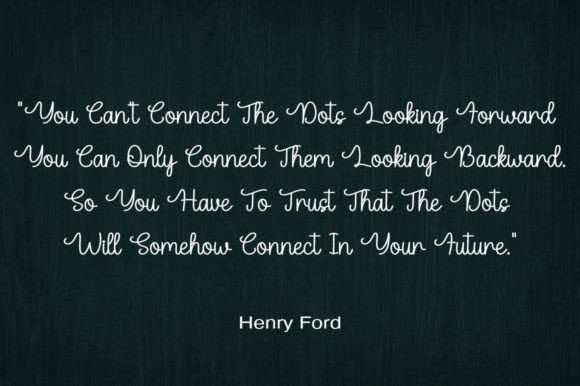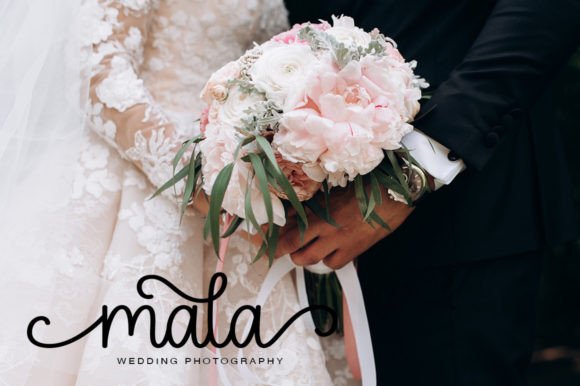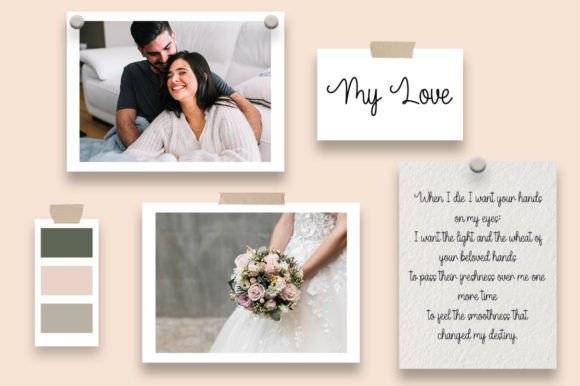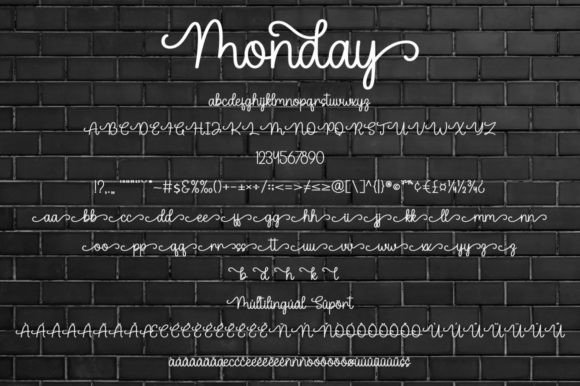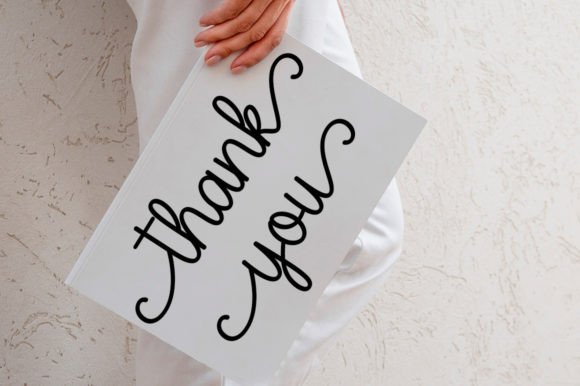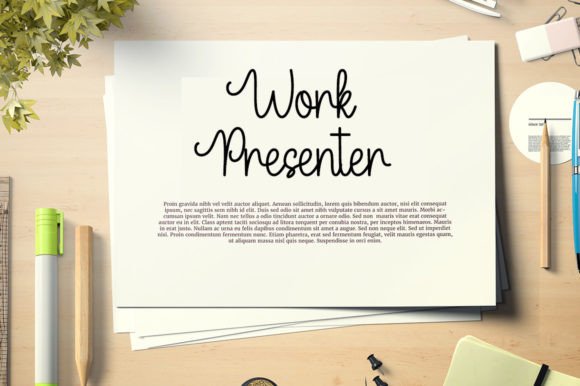
Monday Font
About Monday Font
The Monday Font Download is a beautifully crafted handwritten typeface that blends elegance with modern freshness. Designed to bring a delicate yet stylish charm to your work, Monday is a font that feels natural, graceful, and contemporary. Its smooth lines and carefully shaped letters make it perfect for projects where you want your designs to stand out with a personal touch.
Unlike overly formal calligraphy, Monday strikes the right balance between casual handwriting and professional design. This balance makes it versatile for many applications, whether you are working on personal projects or professional branding.
Features of Monday Font
When you choose the Monday Font Download, you gain access to a set of creative features designed for flexibility and beauty:
• Delicate handwritten style with modern details
• Uppercase, lowercase, numerals, and punctuation included
• Excellent readability for both print and digital designs
These features make Monday a reliable font for both professional designers and hobbyists.
Best Uses for Monday Font
The Monday Font Download adapts beautifully across different types of projects. Its handwritten style adds charm, elegance, and a warm human touch to any design. Some of the best uses include:
• Wedding Invitations & Cards – Create romantic and timeless invitations
• Branding & Logos – Build a professional yet approachable identity
• Quotes & Posters – Highlight inspiring words with stylish appeal
• Social Media Graphics – Add a modern, handwritten vibe to Instagram posts, stories, and ads
• Stationery & Business Cards – Make a memorable impression with unique lettering
• Product Packaging – Ideal for boutique items, cosmetics, or handmade goods
This versatility ensures that Monday quickly becomes a go-to font in your design collection.
Why Designers Love Monday Font
The Monday Font Download is highly valued by designers for its adaptability and fresh appearance. Many handwritten fonts are either too casual or too ornate, but Monday finds the perfect middle ground. Its clarity ensures that it works well in both small text and large displays, making it practical for everything from branding to event invitations.
Designers also appreciate how seamlessly Monday pairs with other fonts. It looks excellent alongside sans-serif typefaces for a modern look, or paired with serif fonts for a more traditional feel. Its flexibility allows it to shine in multiple design contexts.
The Monday Font Download is a modern handwritten font that combines elegance, delicacy, and fresh style. Perfect for projects big or small, it enhances creativity while maintaining strong readability. Whether you’re designing invitations, logos, or social media content, Monday adds a personal touch that makes your work stand out.